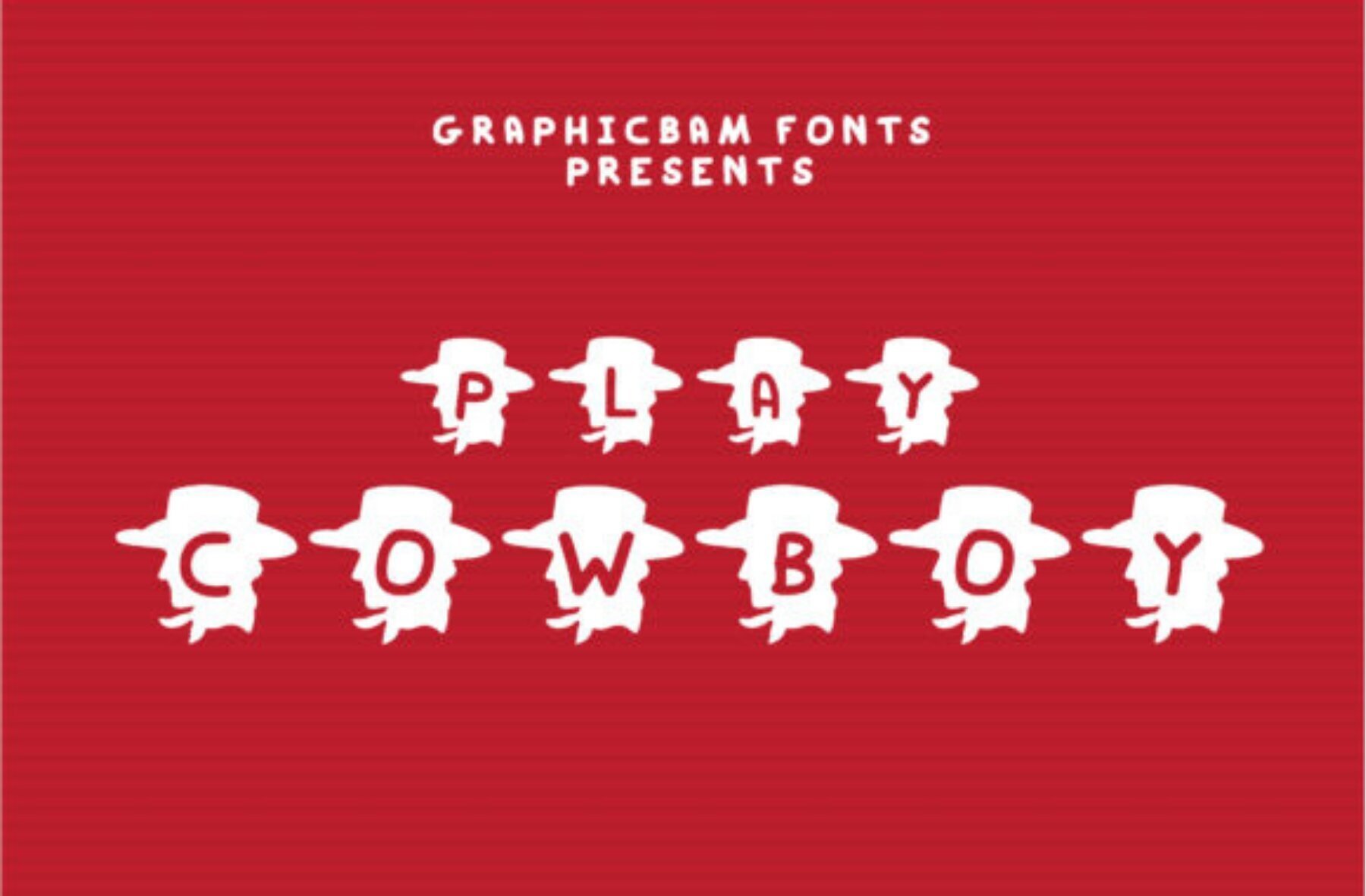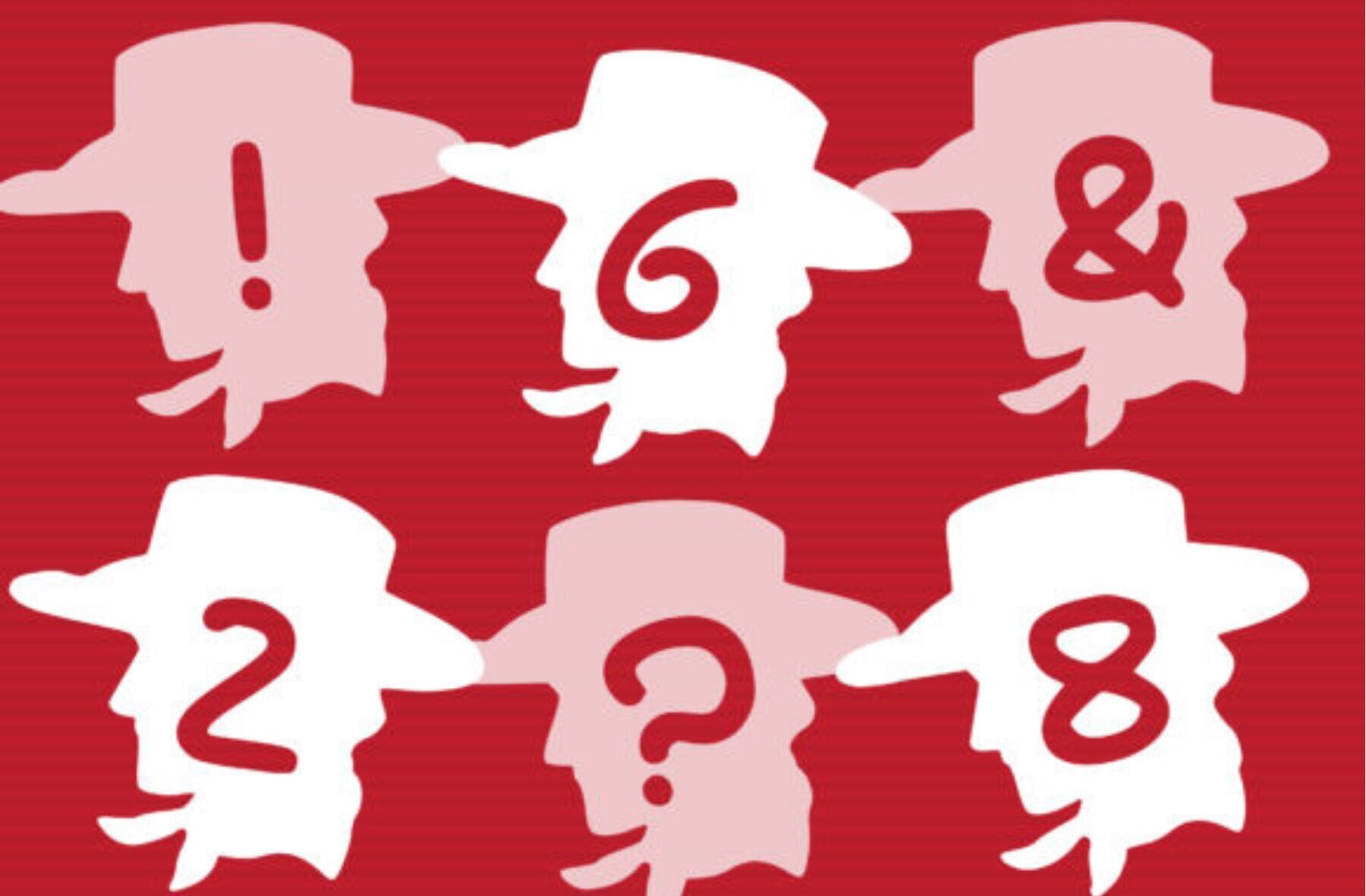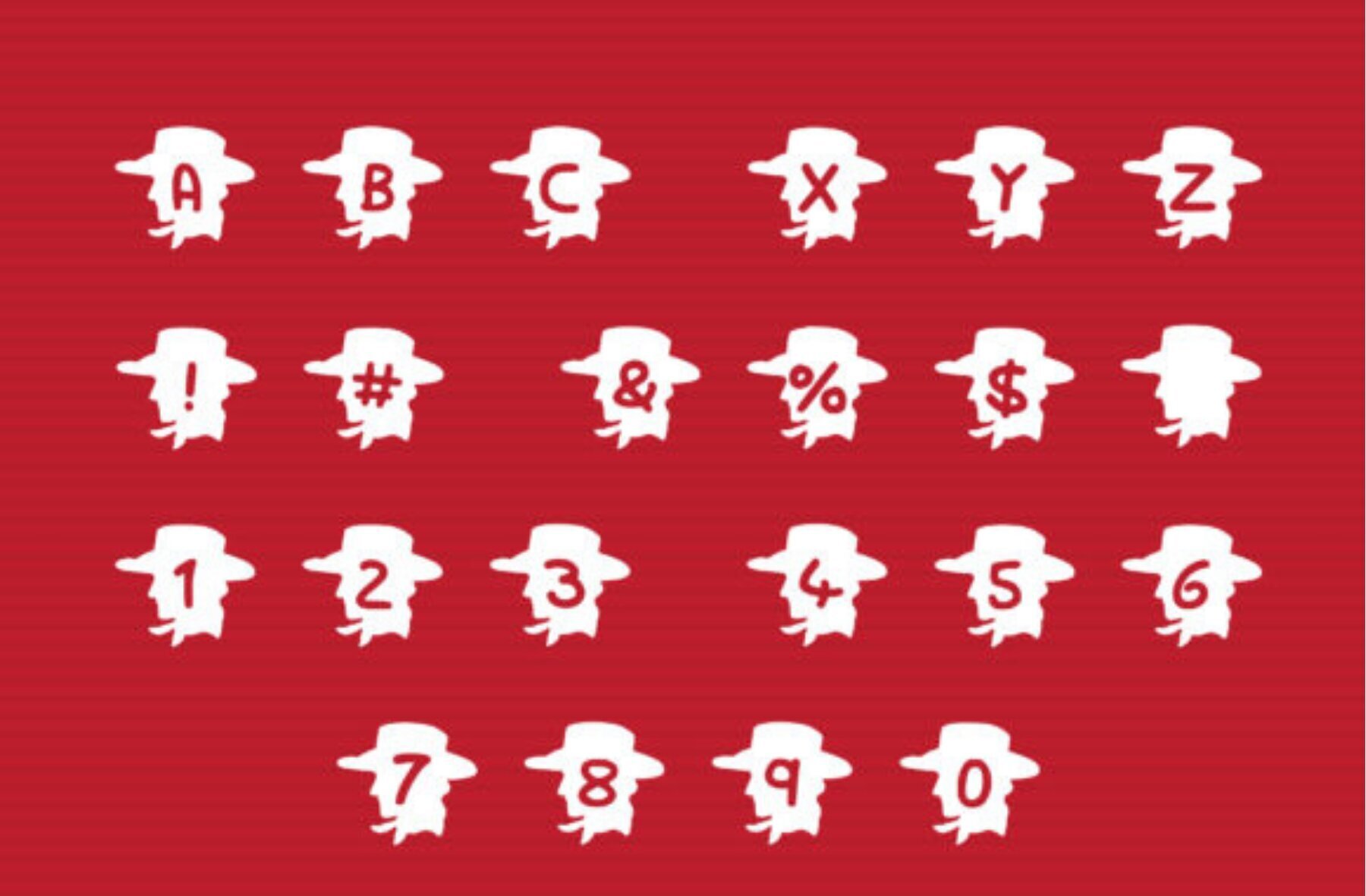
Play Cowboy Font
Play Cow Boy
Add a touch of western charm to your designs with the Play Cowboy font. This captivating decorative font features a unique cowboy silhouette on each character, bringing a playful and adventurous feel to any project. Whether you're working on a themed event poster, a children's book, or branding that needs a rustic edge, Play Cowboy is sure to make a memorable impact.Play Cowboy Font